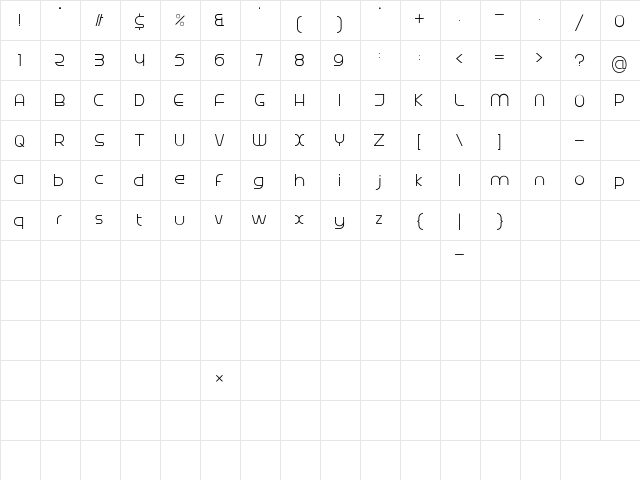
Radina Regular
| Designer | Muhammad Rifqil Anam HR |
Design Context for Radina Typeface
Radina offers clean, dependable letterforms without strong stylistic allegiance, making it a practical choice for designers who need flexibility.